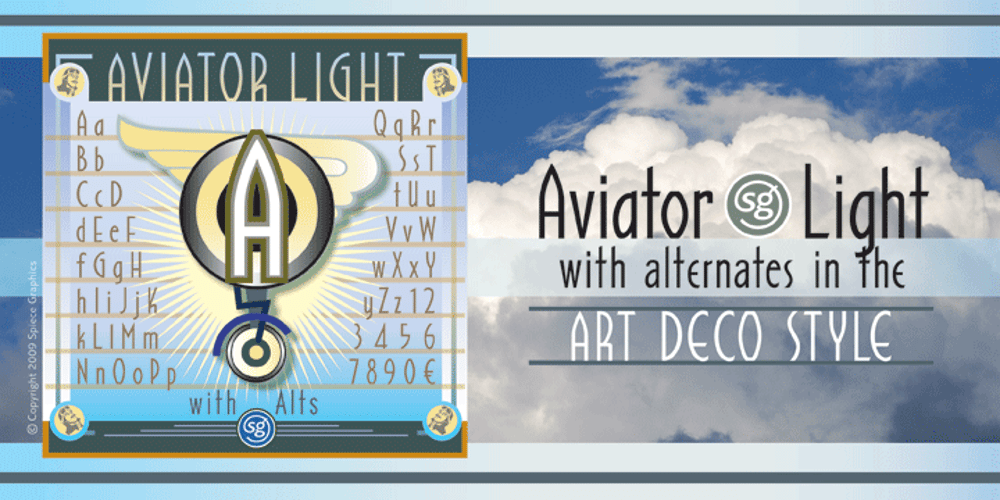
Aviator SG
Aviator SG font
Aviator SG Font Family was designed by Jim Spiece and published by Spiece Graphics. Aviator SG contains 1 styles and family package options. Aviator, also known as Ventura Slim, is based on an old 1930s lettering style popularized by Carl Holmes in his wonderful book on the subject. Angular and at the same time aerodynamic, this low-waisted typeface is great for tight-fitting headlines and other condensed titling situations. You may find it equally useful in developing company logos with a truly retro look. This resurrected digital version of Aviator comes with a convenient and stylish set of alternate characters and small figures. Now enjoy your flight! Aviator is now available in the OpenType Std format. Some new characters have been added to this OpenType version including stylistic alternates and historical forms. These advanced features work in current versions of Adobe Creative Suite InDesign, Creative Suite Illustrator, and Quark XPress. Check for OpenType advanced feature support in other applications as it gradually becomes available with upgrades.